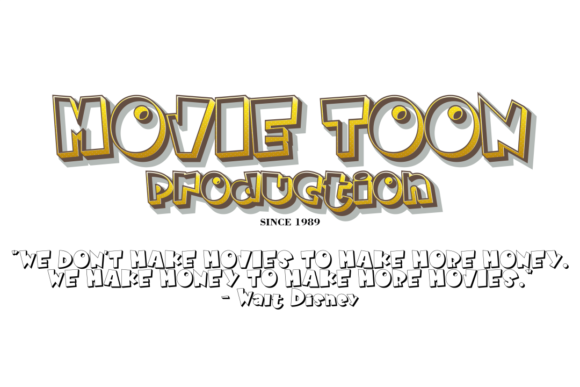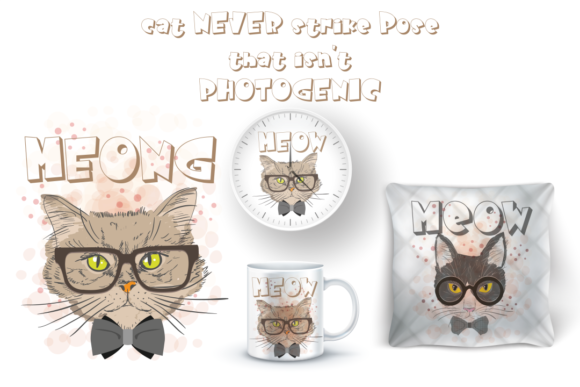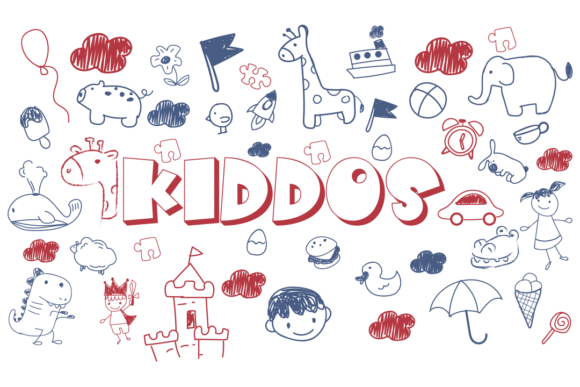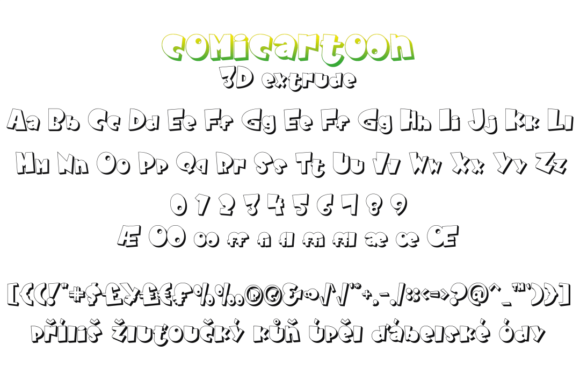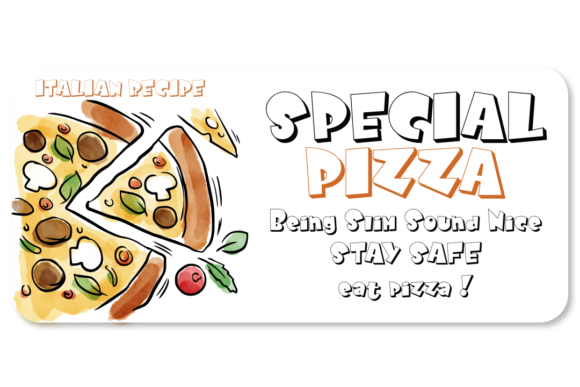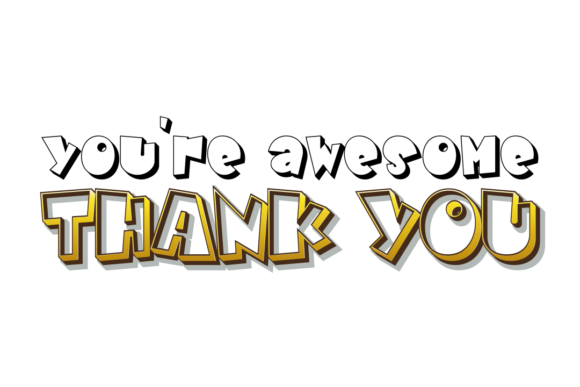
Introducing Comicartoon Font: The Ultimate Choice for Playful Designs
Are you looking for a font that can add a touch of playfulness and whimsy to your designs? Look no further than Comicartoon Font! This incredibly cute and quirky 3D display font is perfect for any children activity or school project. With its chunky lettered design, Comicartoon Font is sure to make your designs come alive!
The Perfect Font for Kids’ Designs
When it comes to designing for kids, it’s essential to choose a font that is not only fun but also engaging. Comicartoon Font is specifically designed to capture the imagination of children, with its bold and colorful 3D letters. Whether you’re creating a poster for a kids’ event, a worksheet for a school project, or a flyer for a children’s party, Comicartoon Font is the perfect choice.
Key Features of Comicartoon Font
• Playful Design: Comicartoon Font features a unique and playful design that is sure to capture the attention of kids and adults alike.
• 3D Letters: The font’s 3D letters add a touch of depth and dimensionality to your designs, making them stand out from the crowd.
• Chunky Lettering: The chunky lettering of Comicartoon Font makes it easy to read and perfect for use in titles, headings, and other display text.
• Authentic Feel: The font’s authentic feel makes it perfect for use in a variety of design projects, from kids’ activities to school projects.
Why Choose Comicartoon Font?
So, why choose Comicartoon Font for your design projects? Here are just a few reasons:
• Easy to Read: The font’s chunky lettering makes it easy to read, even from a distance.
• Highly Versatile: Comicartoon Font can be used in a variety of design projects, from posters and flyers to worksheets and presentations.
• Fun and Engaging: The font’s playful design is sure to capture the imagination of kids and adults alike, making it perfect for use in kids’ designs.
Tips for Using Comicartoon Font
Here are a few tips for using Comicartoon Font in your design projects:
• Use it as a Title Font: Comicartoon Font is perfect for use as a title font, adding a touch of playfulness and whimsy to your designs.
• Pair it with Other Fonts: Try pairing Comicartoon Font with other fonts to create a unique and eye-catching design.
• Experiment with Colors: The font’s bold and colorful design makes it perfect for use with a variety of colors and textures.
In conclusion, Comicartoon Font is an incredibly cute and quirky 3D display font that is perfect for any children activity or school project. With its chunky lettered design and playful feel, it’s sure to make your designs come alive! Whether you’re a designer, crafter, or educator, Comicartoon Font is a great choice for adding a touch of whimsy and fun to your designs.